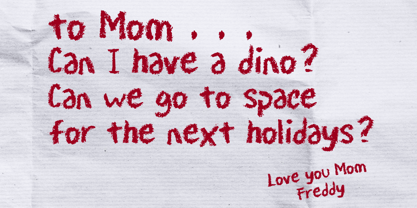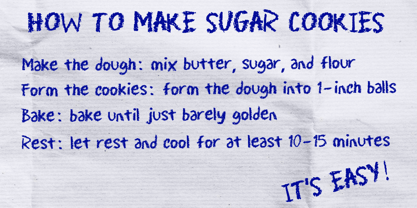
Crayon Scribble
Die Schriftfamilie Crayon Scribble wurde von Gabriel Valentinus entworfen und von Mvmet veröffentlicht. Crayon Scribble enthält 1 Stile. Mehr über diese Familie
Immerse your designs in a world of playful imagination with Crayon Scribble, a distinctive handwriting font inspired by the whimsical strokes of chalk or crayon. This lively and animated typeface infuses enthusiasm, delight, and a heart-fluttering level of excitement into your art. Elevating any design project to new heights, Crayon Scribble showcases unparalleled versatility. Whether used on cheeky stickers, statement t-shirts, captivating logos, striking magazine or book covers, comical cartoons, and more, its impact is limitless. Crayon Scribble doesn't just enhance your designs; it breathes life into them, leaving an indelible, super cool touch. Embrace the fun and scribble with style—choose Crayon Scribble for your next creative endeavor.
Designer: Gabriel Valentinus